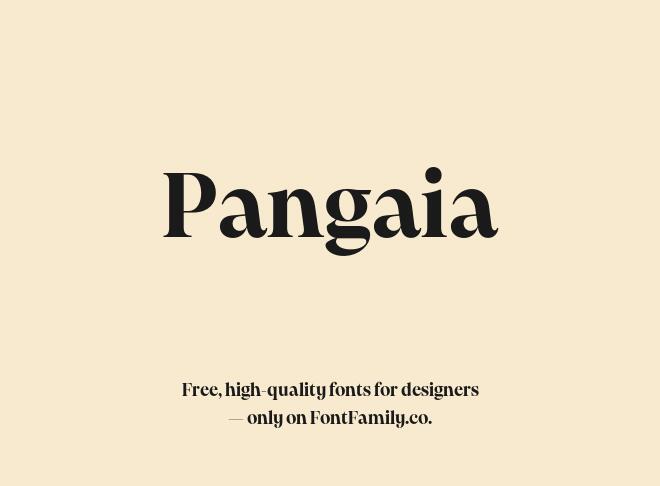
Pangaia Font
Pangaia Font is a modern, geometric, and minimalistic typeface designed by Creative Foundry. Its clean lines, sharp edges, and balanced proportions give it a contemporary and stylish feel. Ideal for digital and print design, Pangaia Font excels in headlines, posters, logos, and branding projects. Its unique character set ensures maximum versatility and compatibility. Compared to other fonts, Pangaia stands out for its distinctive geometrical shapes, making it a great choice for designers who want to add a modern and sophisticated touch to their work. Despite its minimalistic design, Pangaia Font does not compromise on readability, making it a practical choice for both large and small text sizes. Download Pangaia Font for free and elevate your design projects.